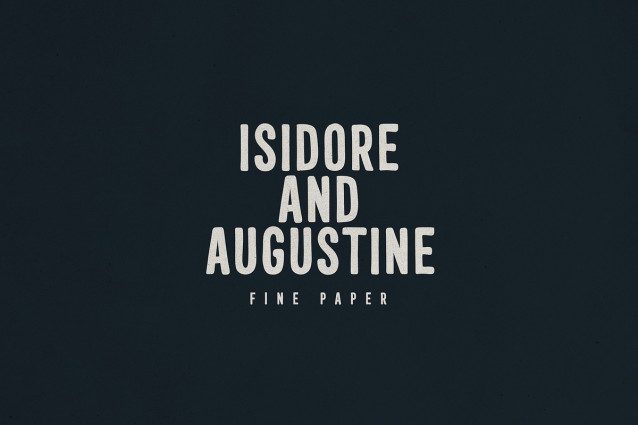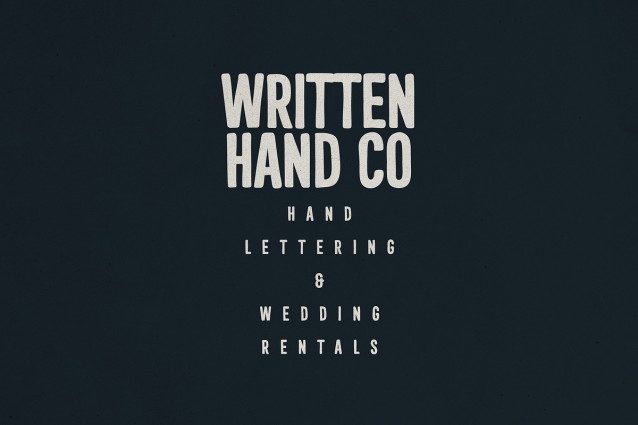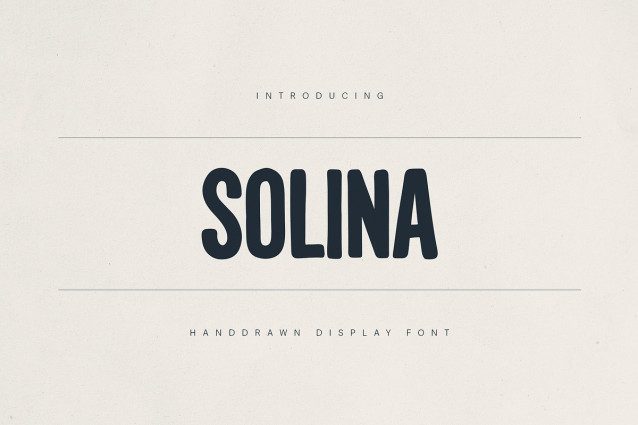
Solina Font
Solina Font is a bold and charismatic handdrawn display font that blends organic personality with clean readability. Designed to stand out, Solina features rounded edges, tall proportions, and a subtly irregular hand-crafted aesthetic—perfect for brands and creatives who want to infuse their projects with warmth, authenticity, and style.
Whether you’re designing for home decor brands, boutique packaging, editorial titles, or modern bistros, Solina adapts beautifully. Its uppercase-only design and multilingual support make it an excellent choice for logos, signage, headers, invitations, and social media graphics.